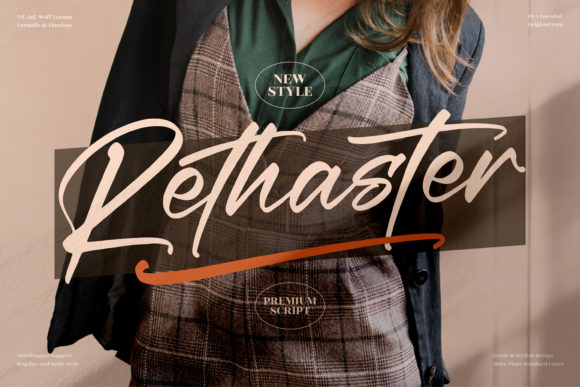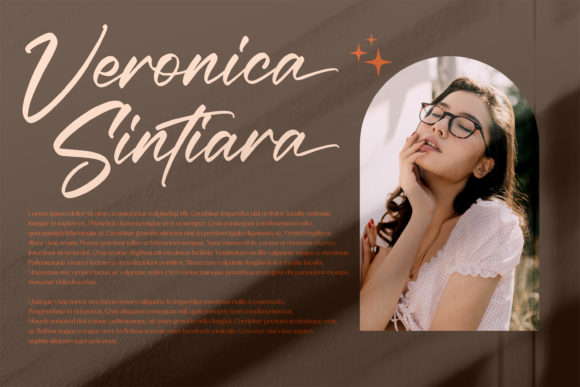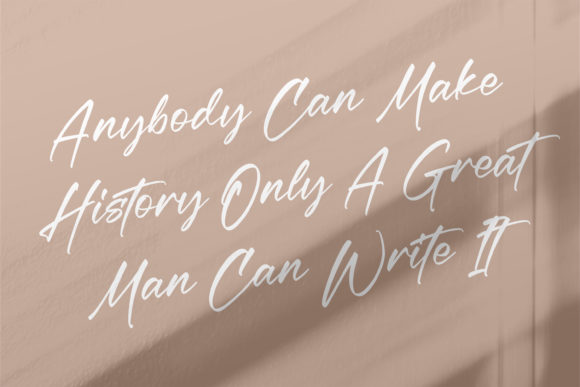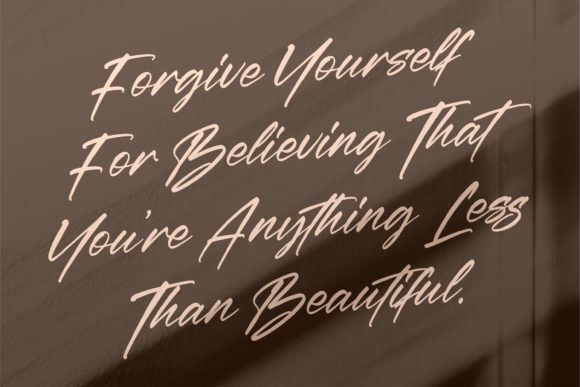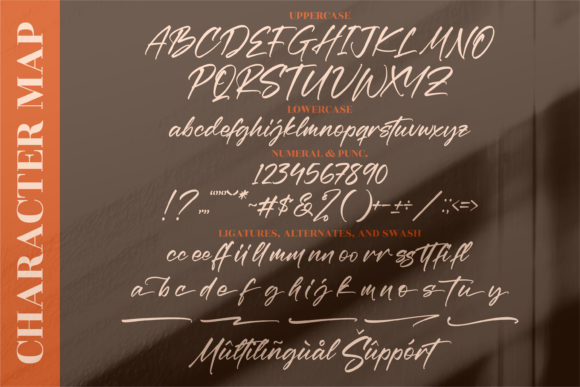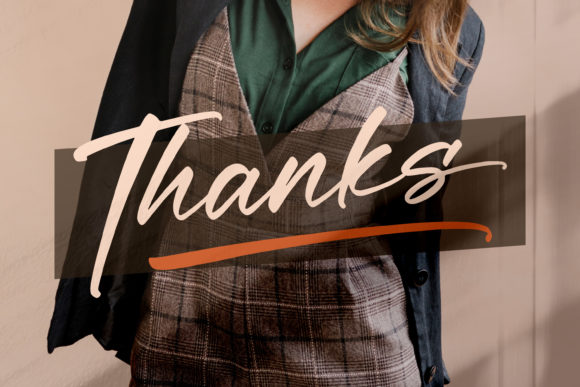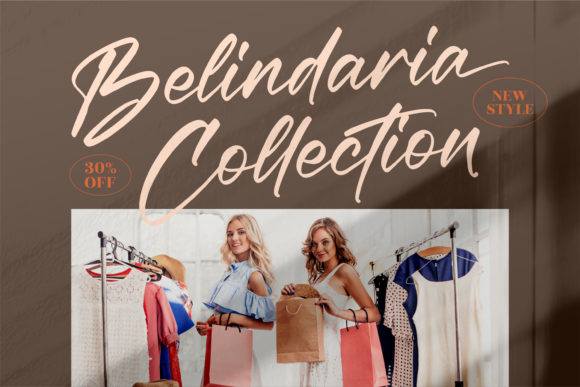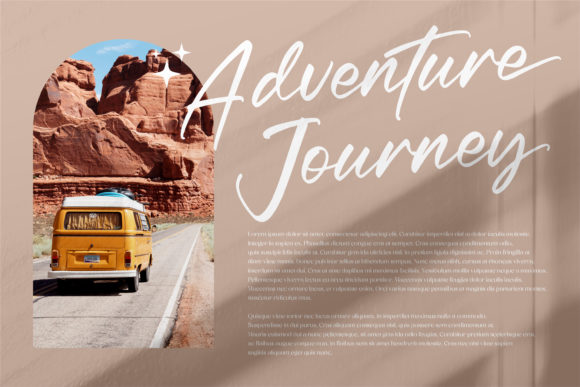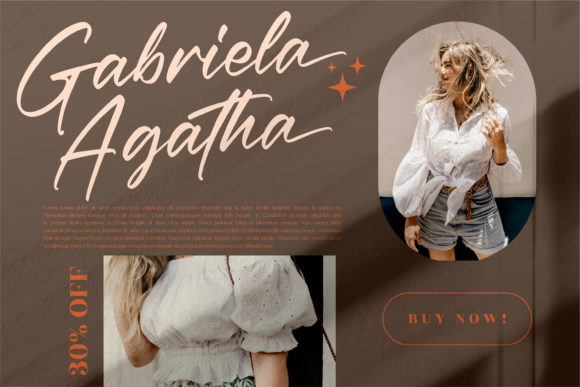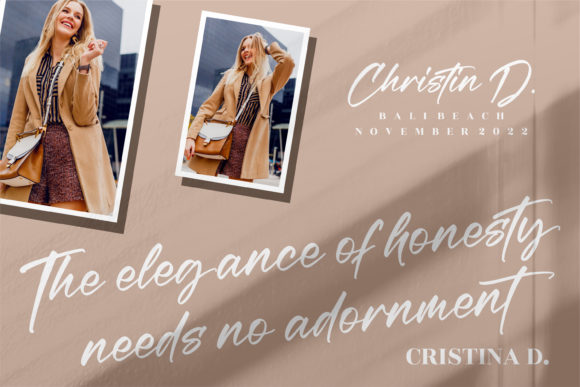
Rethaster Font
About Rethaster Font
Rethaster is a lovely and delicate script font that exudes elegance and class. This font was particularly crafted for those who need a beautiful and refreshing look to their designs.
Rethaster is PUA encoded which means you can access all of the amazing glyphs and ligatures with ease!